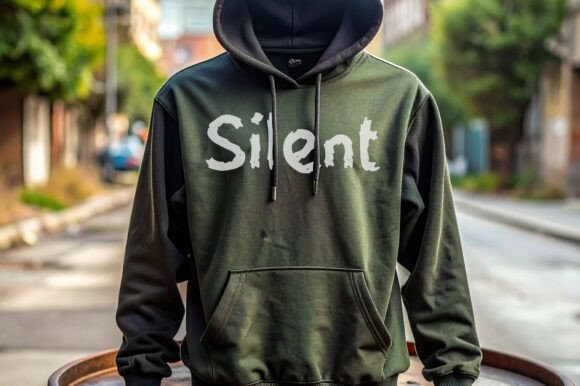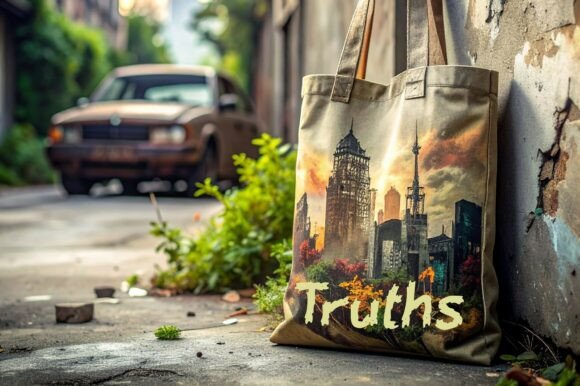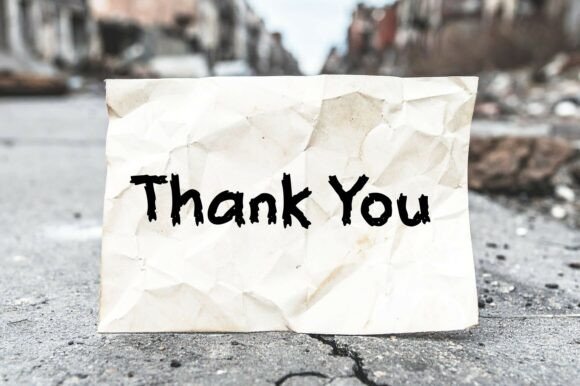
Unleash Your Creativity with “Biggest Garbage” – The Ultimate Brush Script Font
Are you tired of using the same old fonts in your designs? Look no further! “Biggest Garbage” is a revolutionary brush script font that embodies the perfect blend of minimalist and avant-garde styles. This font is not just a typographic choice, but a statement piece that adds an unpolished, unpretentious twist to any creative project.
The Raw, Handcrafted Appeal of “Biggest Garbage”
Each rugged stroke in “Biggest Garbage” is steeped in a raw, handcrafted appeal that unapologetically steals the spotlight. The font’s tattered baselines, roaring contrasts in letter ranges, and serrated contours infuse a palpable graffiti-esque spirit, making it a signature of its ultra-modern, characteristically edgy persona.
Conceived for the Audacious Trailblazers
“Biggest Garbage” is specifically designed for bold and daring designers, artists, and crafters who want to push the boundaries of creativity. Whether you’re working on a branding project, poster design, album cover, or social media space, this font is tailor-made to add a touch of edginess and inventiveness to your work.
Comprehensive Set of Standard Punctuation
One of the standout features of “Biggest Garbage” is its comprehensive set of standard punctuation. This font is equipped to handle a wide range of applications, making it a versatile choice for designers who need to work on various projects.
Elevate Your Designs with “Biggest Garbage”
So, how can you use “Biggest Garbage” to elevate your designs? Here are a few ideas:
- Bold Branding: Use “Biggest Garbage” to create bold and eye-catching logos, business cards, and letterheads that make a statement.
- Unforgettable Posters: Create striking posters that grab attention with the font’s rugged and avant-garde style.
- Striking Album Covers: Add an edgy touch to your music album covers with “Biggest Garbage” and make them stand out.
- Visually Arresting Social Media Spaces: Use the font to create visually stunning social media graphics, quotes, and posts that showcase your brand’s personality.
- Digital Designs: Incorporate “Biggest Garbage” into your digital designs, such as website headers, mobile app interfaces, and video game UI, to add a touch of grit and personality.
Get Ready to Make a Statement with “Biggest Garbage”
In conclusion, “Biggest Garbage” is more than just a font – it’s a creative statement. With its raw, handcrafted appeal, comprehensive set of standard punctuation, and versatility across various design tools, this font is poised to revolutionize the way you approach typography. So, don’t settle for ordinary fonts – unleash your creativity with “Biggest Garbage” and make a lasting impression on your audience.